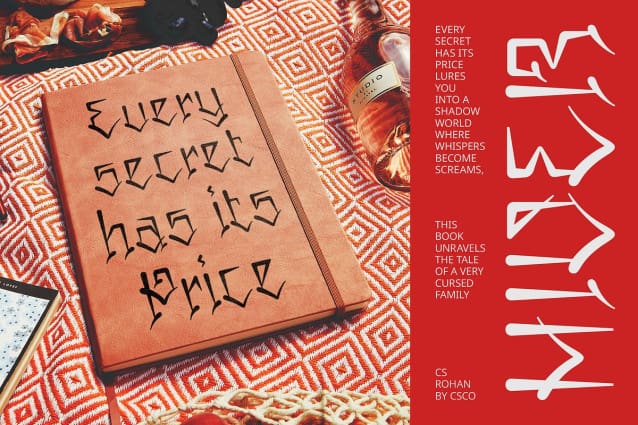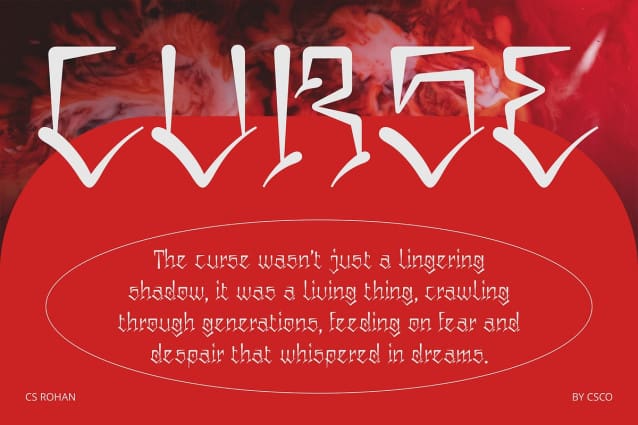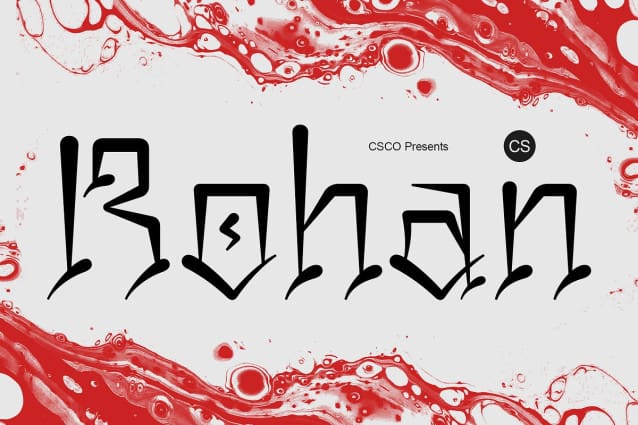
CS Rohan Font
CS Rohan Font is a Chicano graffiti-inspired display font that brings a dynamic and expressive vibe to any design. Drawing from the powerful influence of Chicano street art, this font showcases bold, heavy letterforms with distinctive curves, irregular shapes, and intricate details. Its striking visual presence exudes a sense of rebellious energy and creative freedom, making it perfect for designs that need to make a bold statement.
Urban Street Art Influence Inspired by the vibrant world of Chicano street culture, CS Rohan incorporates elements typical of graffiti art—sharp, thick lines, flowing curves, and expressive flourishes that infuse the design with energy and character. The use of shadows and ornamental details adds depth, giving the font a hand-crafted, authentic feel, perfect for capturing the essence of urban artistry.
Perfect for Bold and Creative Designs Whether you’re creating event posters, album covers, or streetwear branding, CS Rohan is the ideal choice for projects that need to stand out. Its bold and funky design makes it perfect for music posters, community-based promotions, and any creative project that seeks to express boldness and individuality. This font instantly grabs attention, making it perfect for modern designs targeting an urban or youthful audience.